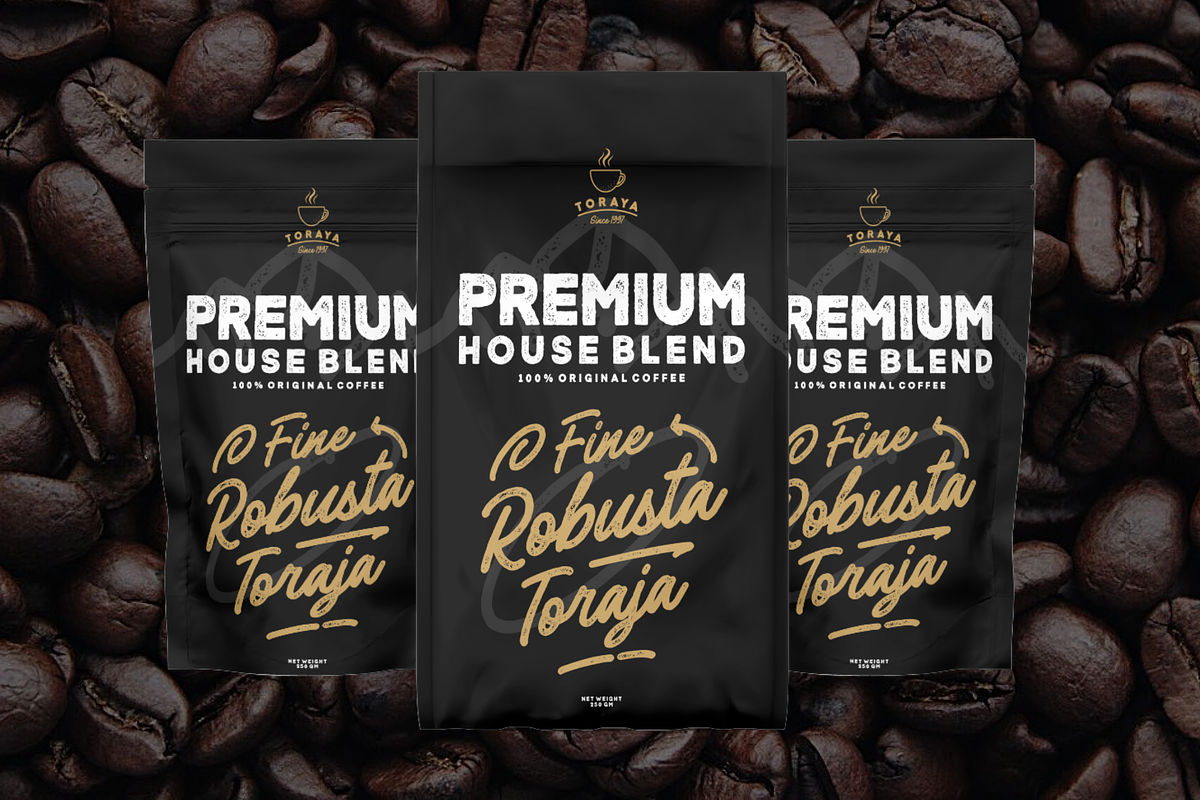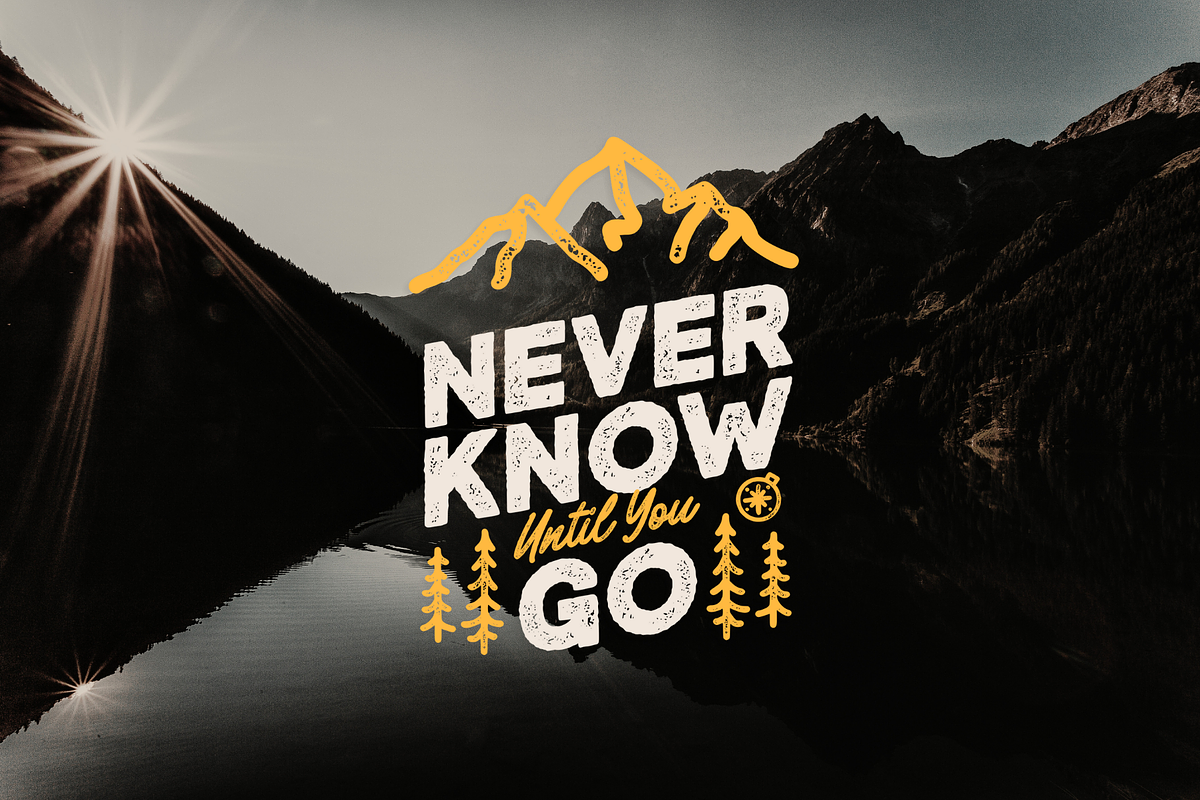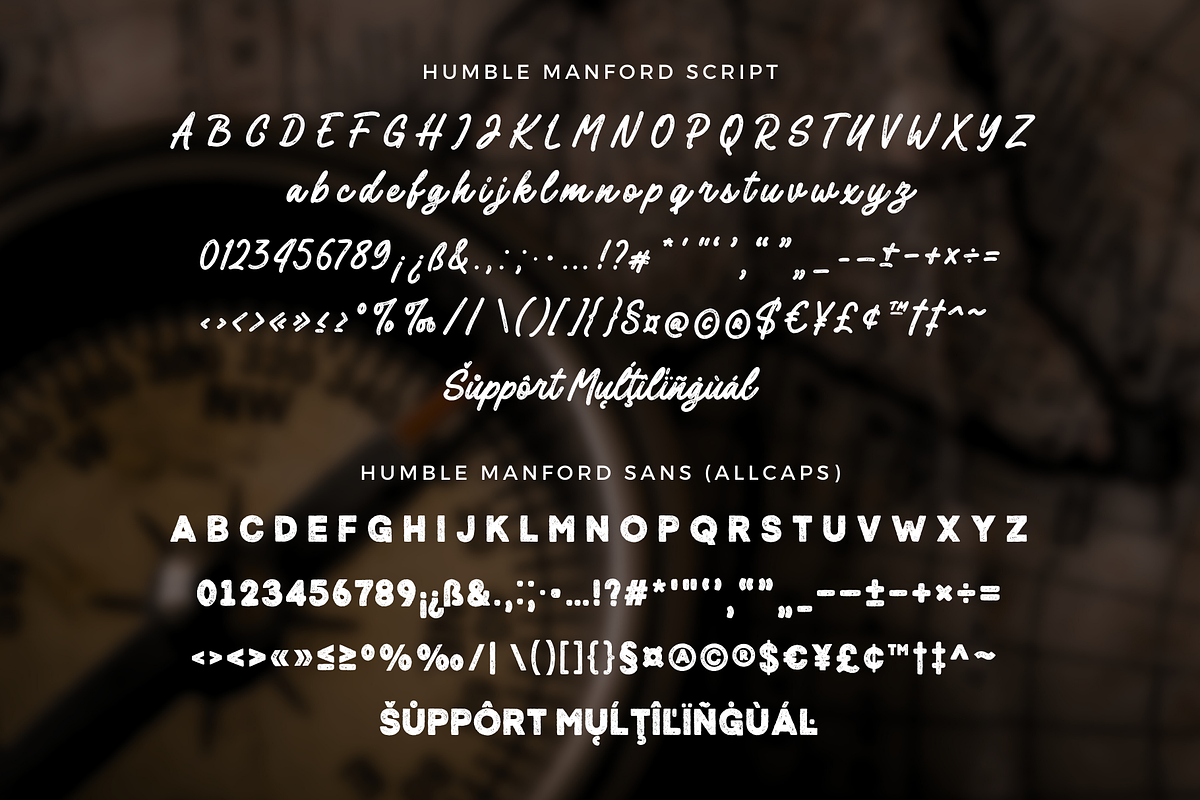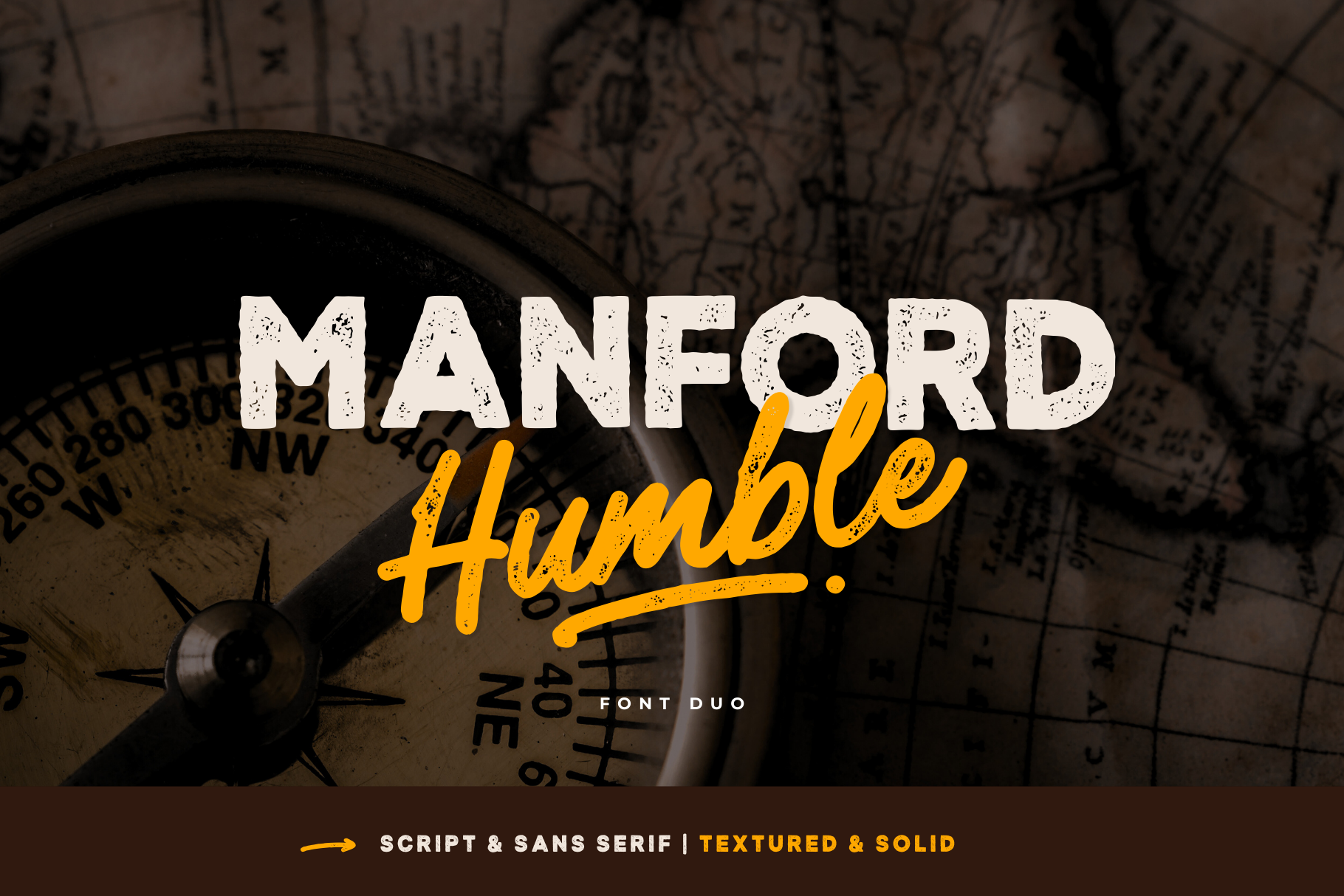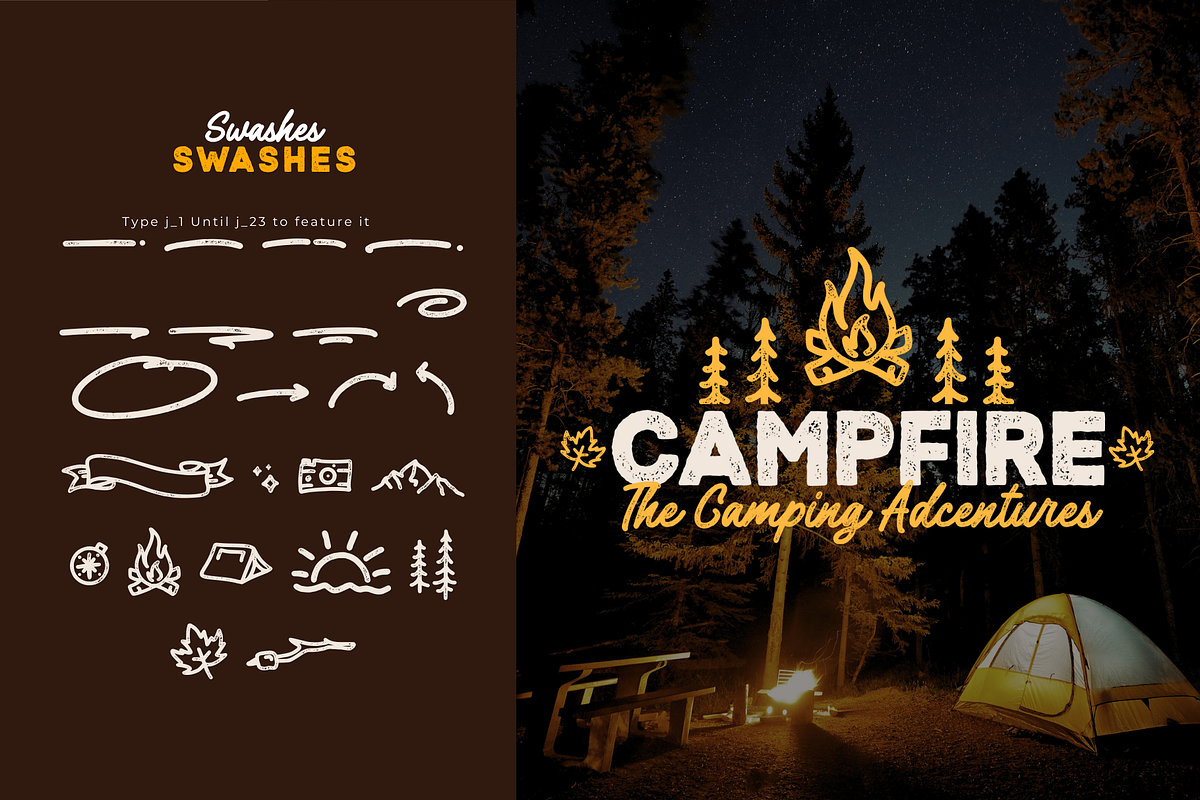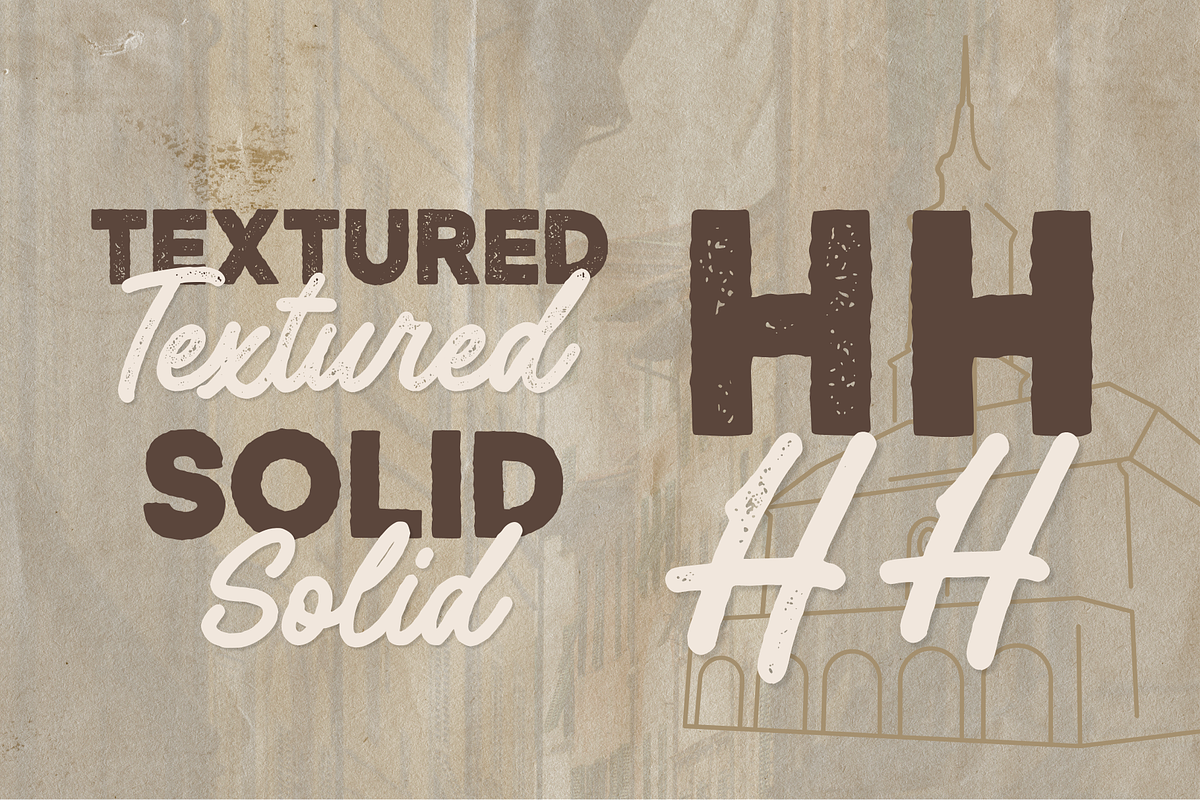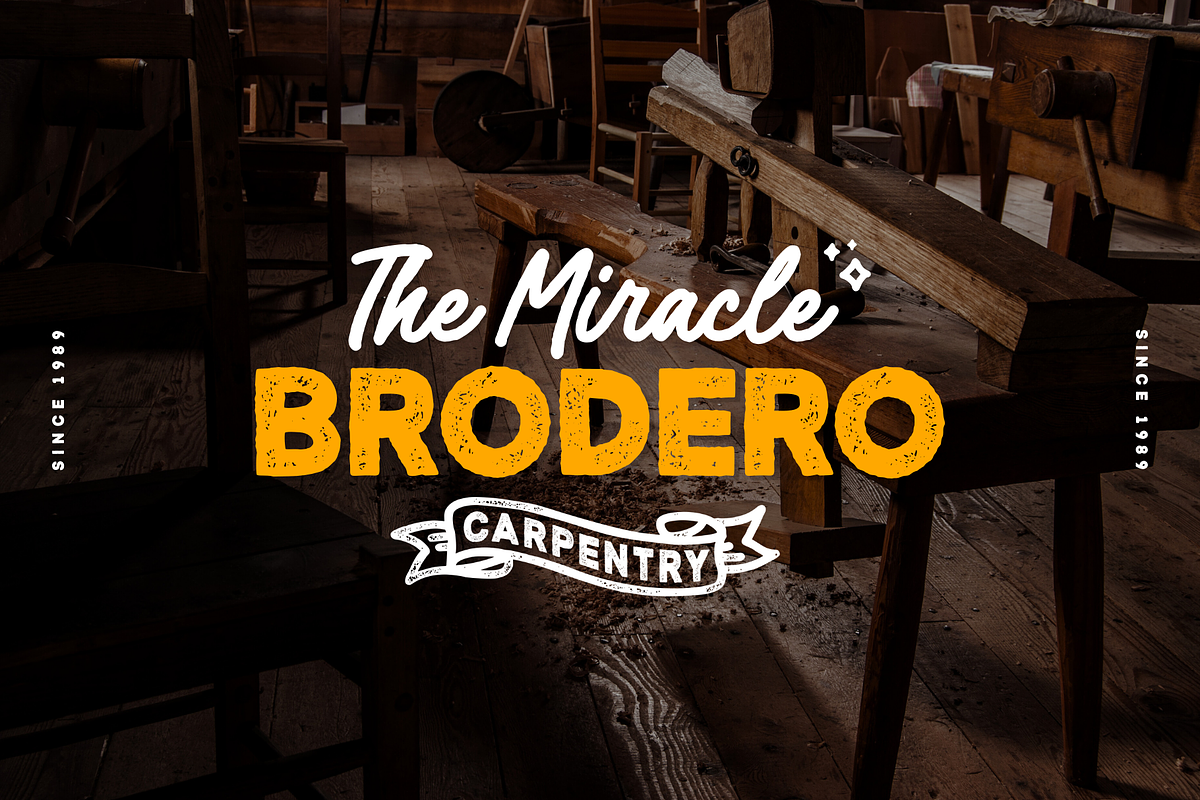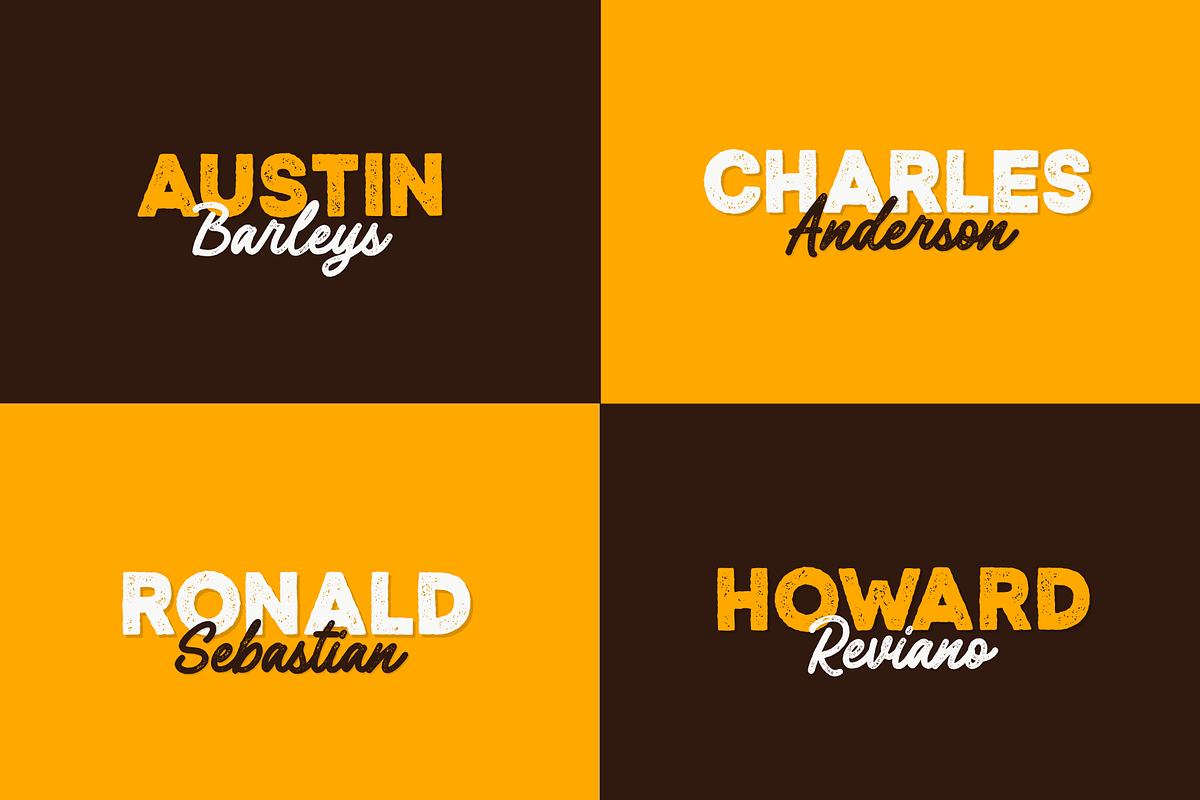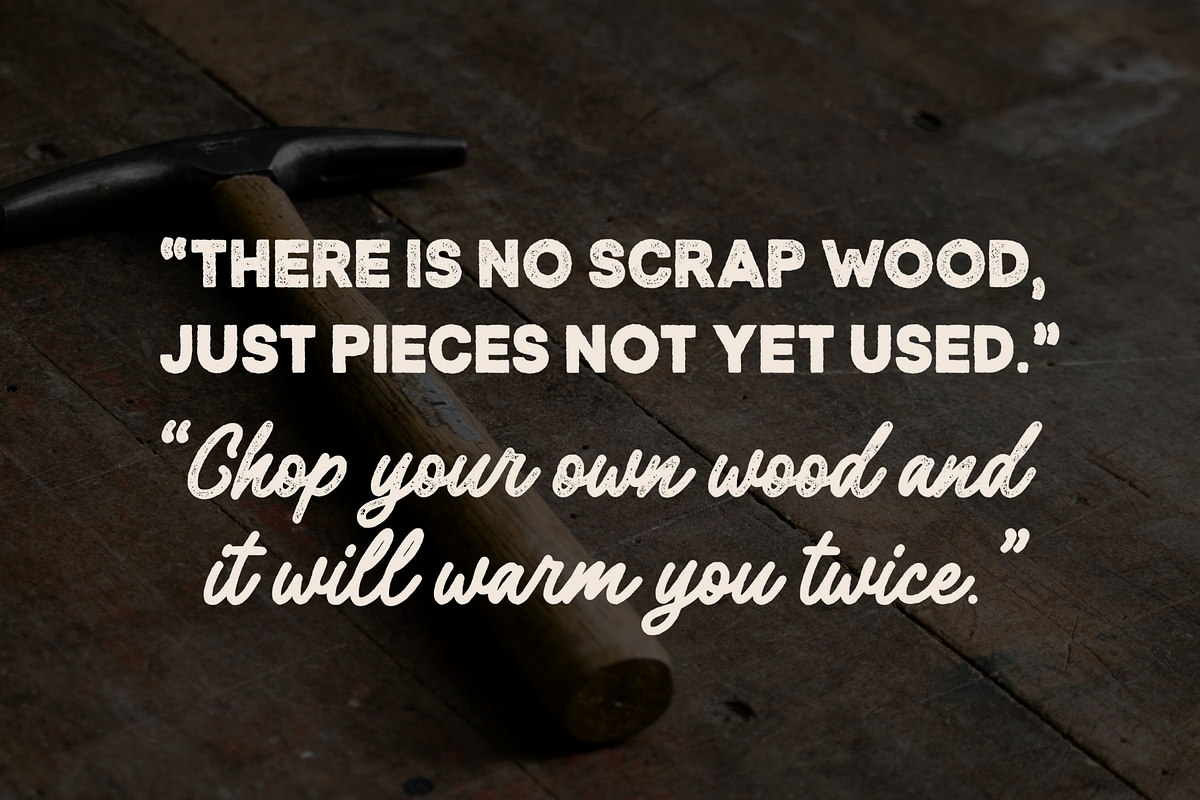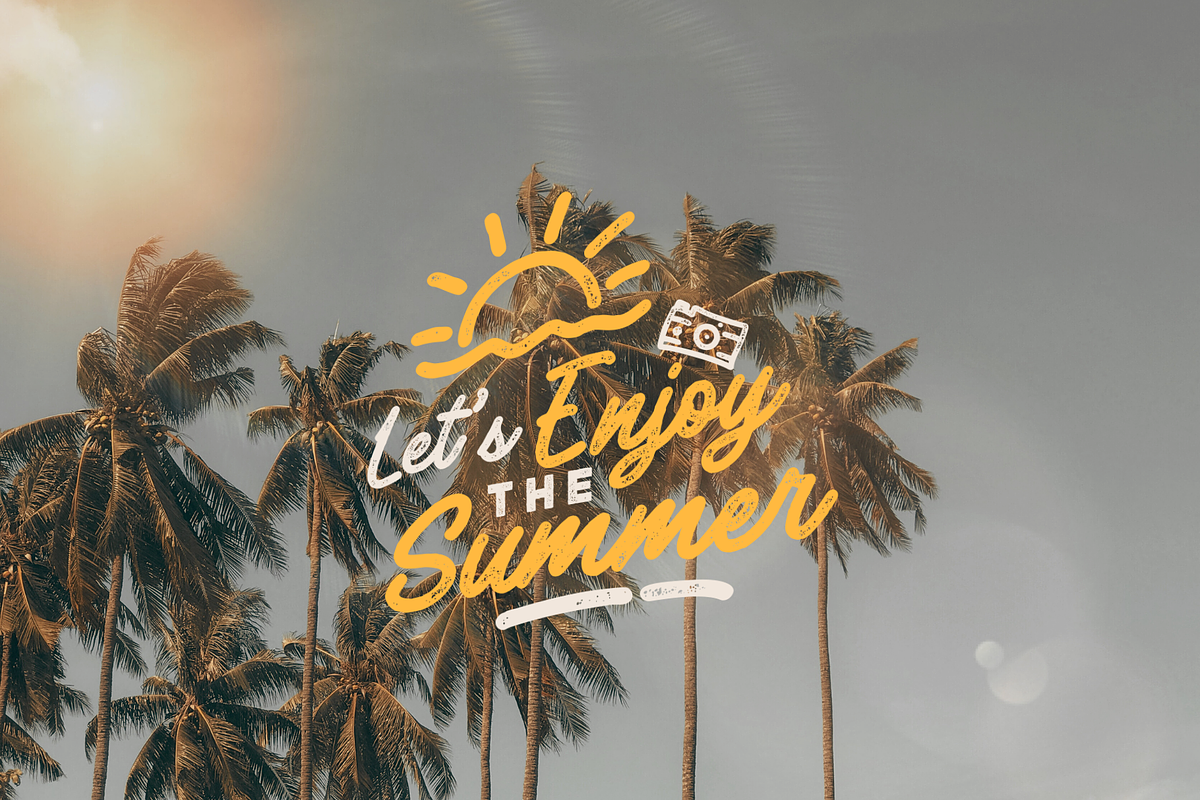
Introducing, Humble Manford Font Duo is an excellent choice for logo design, branding, packaging, business card, and adventure-themed designs. Its combination of script and sans serif styles, along with the textured and solid options, provides ample creative opportunities for designers to explore and create stunning visual identities and marketing materials.
A set of uppercase and lowercase glyphs
Number, symbol, and punctuation
Swashes (script)
Solid Version